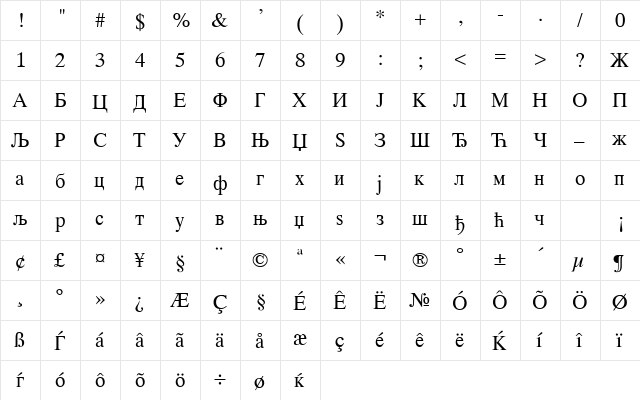
TimesCiril Regular
Design Context for TimesCiril Typeface
TimesCiril is a composed and adaptable typeface that performs quietly and consistently across a wide range of design contexts.